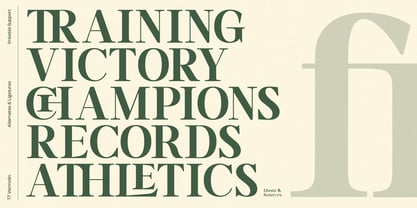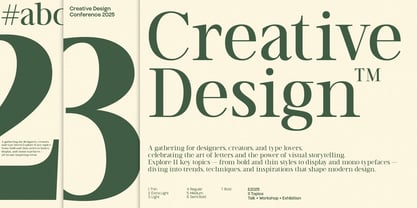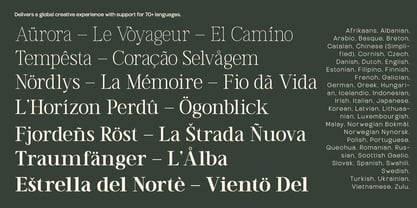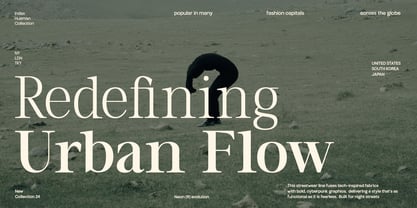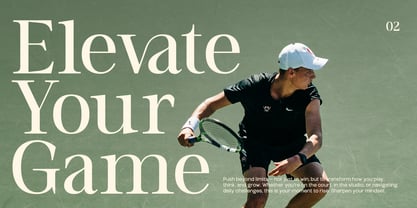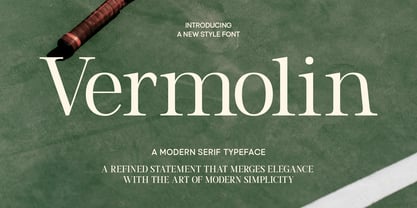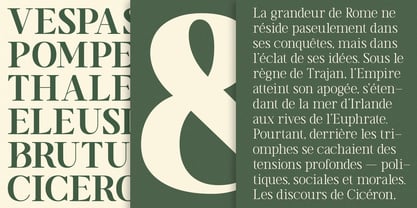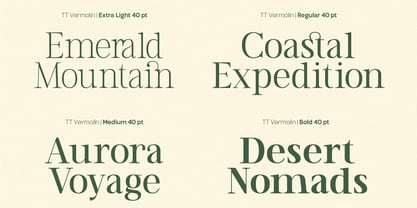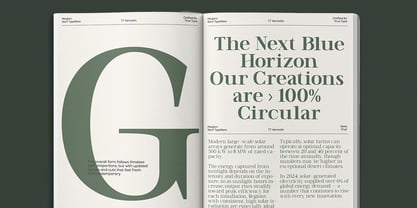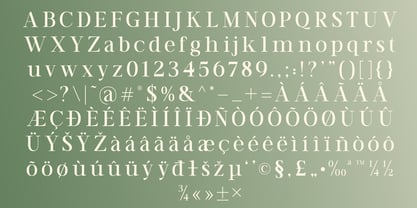
TRT Vermolin
The TRT Vermolin Font Family was designed by Yusilo Oktaprima Ardani and published by True Type Lab. TRT Vermolin contains 7 styles and family package options. More about this family
Vermolin is a refined serif typeface that captures timeless sophistication through its sharp contrasts, high vertical stress, and sculptural forms. Carefully crafted for both high readability and high impact, Vermolin thrives in editorial, branding, and luxury packaging settings.
With elegant proportions and subtle details, each letterform is designed to exude confidence and clarity. Its generous x-height and slender stems make it ideal for both print and digital formats, giving your layouts an instant sense of prestige.